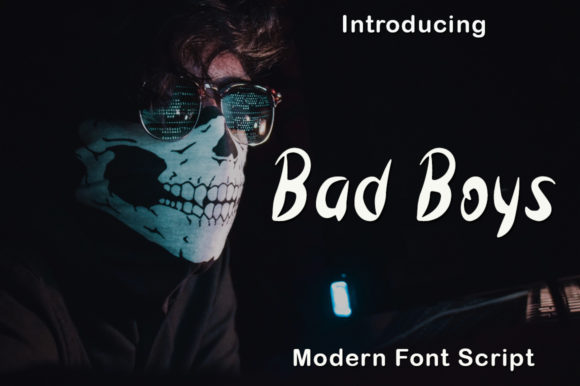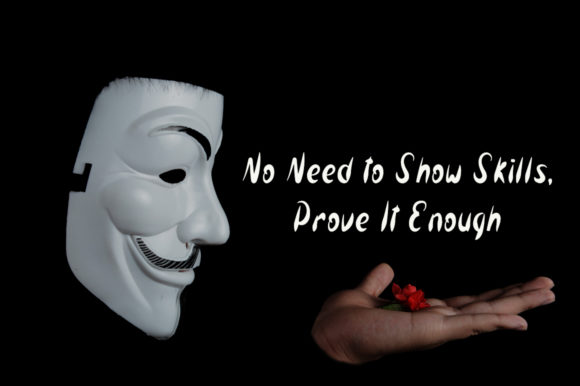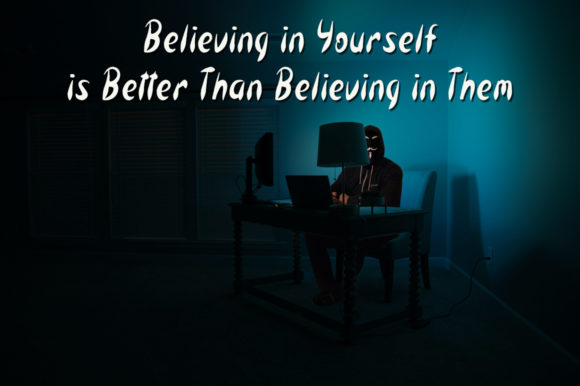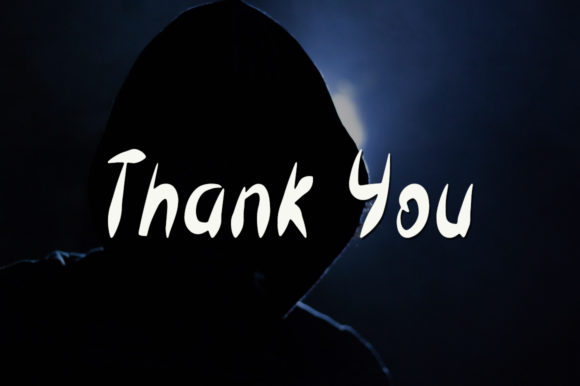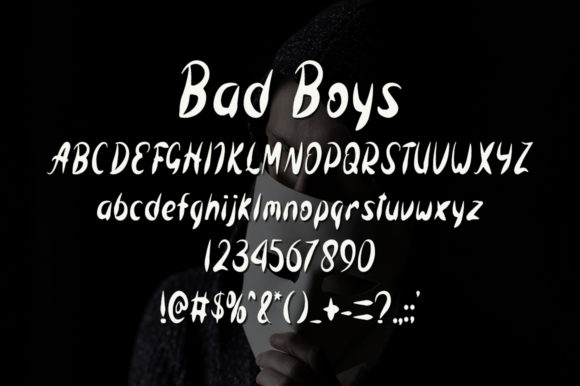
Bad Boys Font
Bad Boys: Embrace the Simplicity and Neatness of a Handwritten Gem
Introducing Bad Boys, a font that exudes simplicity and neatness in every letter. Its handwritten style captures the essence of clean lines and elegance, making it a perfect addition to your creative ideas. Whether you’re designing logos, crafting posters, or creating social media content, adding Bad Boys to your projects will make them stand out with a touch of modern sophistication.
The allure of Bad Boys lies in its simple and refined appearance. Each letter is carefully crafted with clean strokes, giving your designs a sleek and polished look that is sure to catch the eye.
Designing with Bad Boys is a breeze. Its neat and organized style adds a sense of professionalism and clarity to your projects, making them visually appealing and easy to read.
Expressing sentiments becomes a seamless experience with Bad Boys. Whether you’re conveying strong statements or sharing subtle messages, this font allows your words to take center stage with its understated elegance.
Gorgeous designs come to life with Bad Boys’ versatility. From business cards to packaging, from posters to website headers, this font adds a touch of contemporary flair that sets your creations apart.
For businesses seeking a logo that stands out, Bad Boys is the answer. Its modern and neat appearance communicates a sense of sophistication and reliability, making it an excellent choice for brand identity design.
And when it comes to unleashing your creativity, Bad Boys won’t disappoint. Its simplicity and versatility allow it to complement a wide array of design styles, from minimalistic to bold and dynamic.
In conclusion, Bad Boys is more than just a font; it’s a refined gem that adds a touch of modern elegance to your creative ideas. Embrace its simplicity and neatness, and let it enhance your projects with a touch of sophistication. Whether you’re crafting designs for business or pleasure, Bad Boys will be your reliable companion, making them stand out and leave a lasting impression. Add this font to your creative toolkit and watch as your ideas shine with the simple and neat charm of Bad Boys.